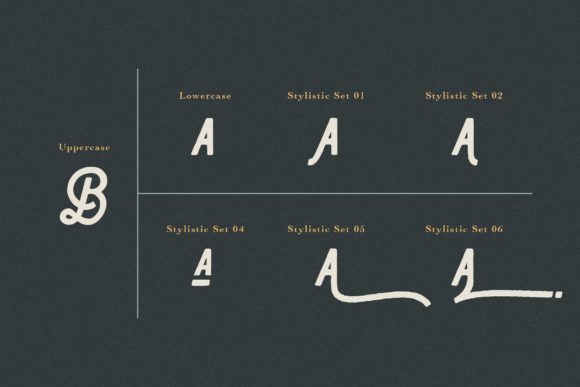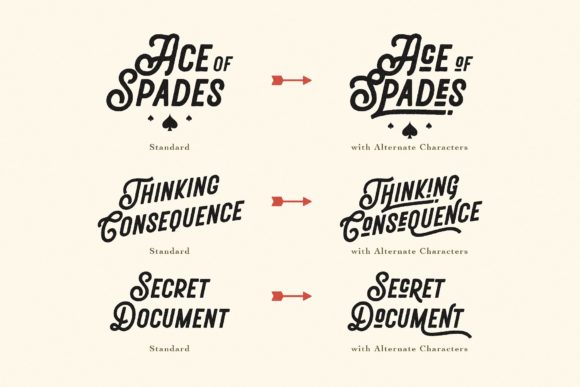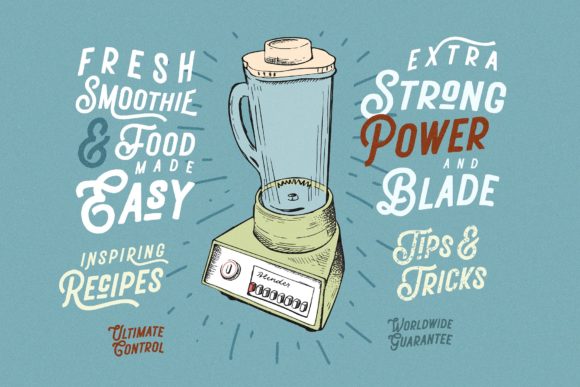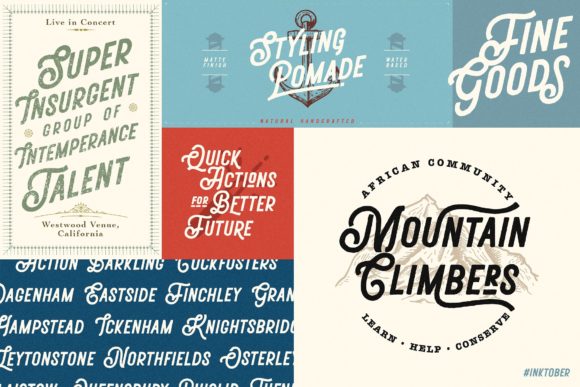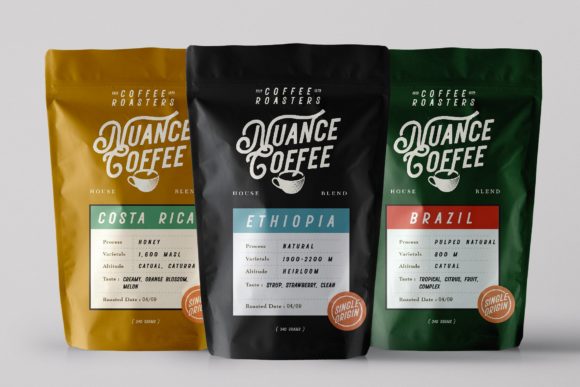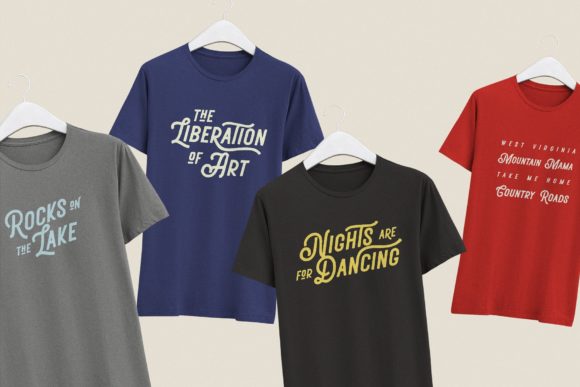
Introducing Deltras Font: A Modern Handmade Display Typeface
In the world of typography, fonts play a crucial role in conveying the tone and personality of a brand or design. For designers and crafters looking to add a touch of elegance and sophistication to their work, Deltras Font is an excellent choice. This modern handmade display typeface combines the best of classic and modern styles, making it a versatile and eye-catching addition to any design project.
A Perfect Blend of Classic and Modern Styles
The Deltras Font is a beautiful fusion of traditional and contemporary design elements. Its classic style is reminiscent of vintage printings, while its modern hand lettering style gives it a fresh and unique look. This blend of old and new makes Deltras Font an excellent choice for designers who want to create stunning and distinctive designs that stand out from the crowd.
Smooth Edges for Beautiful Vintage Printings
One of the standout features of Deltras Font is its smooth edges, which give it a luxurious and refined look. These smooth edges are perfect for creating beautiful vintage printings that evoke a sense of nostalgia and sophistication. Whether you’re working on a branding project, a packaging design, or a marketing material, Deltras Font’s smooth edges will add a touch of elegance and refinement to your work.
Add a Classic Hand-Drawn Look to Your Designs
Deltras Font’s classic hand-drawn look is another one of its key features. The font’s handmade style gives it a personal and organic feel that’s perfect for designers who want to add a human touch to their work. With Deltras Font, you can create designs that look like they were drawn by hand, which can be especially useful for crafters and designers who specialize in handmade or artisanal products.
Key Features of Deltras Font
- Modern handmade display typeface
- Combines classic and modern hand lettering styles
- Smooth edges for beautiful vintage printings
- Classic hand-drawn look for a personal and organic feel
- Perfect for branding, packaging, marketing materials, and more
Why Designers and Crafters Love Deltras Font
Deltras Font has quickly become a favorite among designers and crafters, and for good reason. Its unique blend of classic and modern styles makes it a versatile and eye-catching choice for a wide range of design projects. Here are just a few reasons why designers and crafters love Deltras Font:
- Elegance and sophistication: Deltras Font adds a touch of elegance and sophistication to any design project, making it perfect for high-end brands and luxury products.
- Versatility: Deltras Font can be used for a wide range of design projects, from branding and packaging to marketing materials and more.
- Uniqueness: Deltras Font’s handmade style and smooth edges make it a unique and eye-catching choice for designers who want to stand out from the crowd.
How to Use Deltras Font in Your Designs
Using Deltras Font in your designs is easy. Here are a few tips to get you started:
- Pair it with other fonts: Deltras Font pairs well with other fonts, especially those with a classic or vintage feel.
- Experiment with colors: Deltras Font looks great in a variety of colors, from bold and bright to soft and pastel.
- Use it for headlines and titles: Deltras Font is perfect for headlines and titles, where its elegant and sophisticated style can really shine.
| Author | abbasystudio |
In conclusion, Deltras Font is a modern handmade display typeface that’s perfect for designers and crafters looking to add a touch of elegance and sophistication to their work. Its unique blend of classic and modern styles, smooth edges, and classic hand-drawn look make it a versatile and eye-catching choice for a wide range of design projects. Whether you’re working on a branding project, a packaging design, or a marketing material, Deltras Font is an excellent choice.